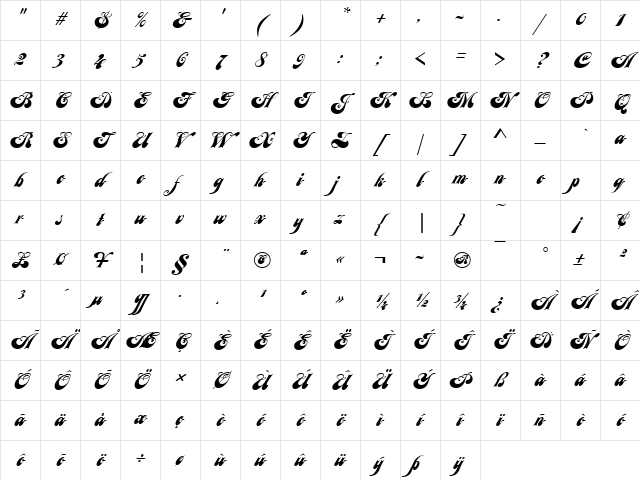
URWJacobiD Regular
Design Context for URWJacobiD
URWJacobiD is a composed and adaptable typeface that performs quietly and consistently across a wide range of design contexts.
Pro Tip: Use URWJacobiD in both headline and body roles to test its range before committing to a single application.